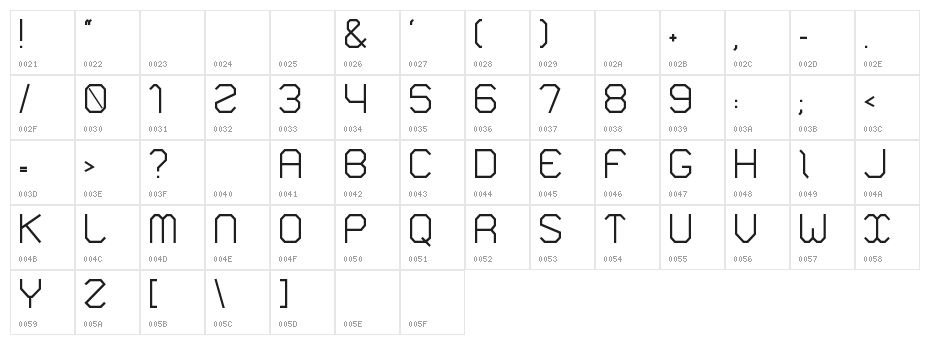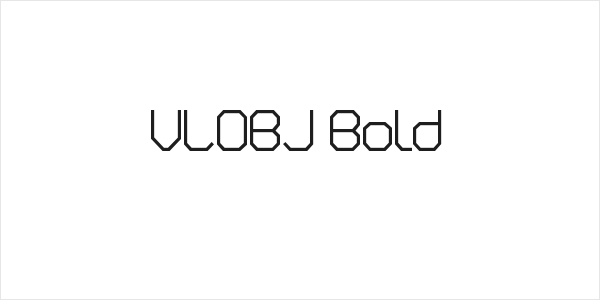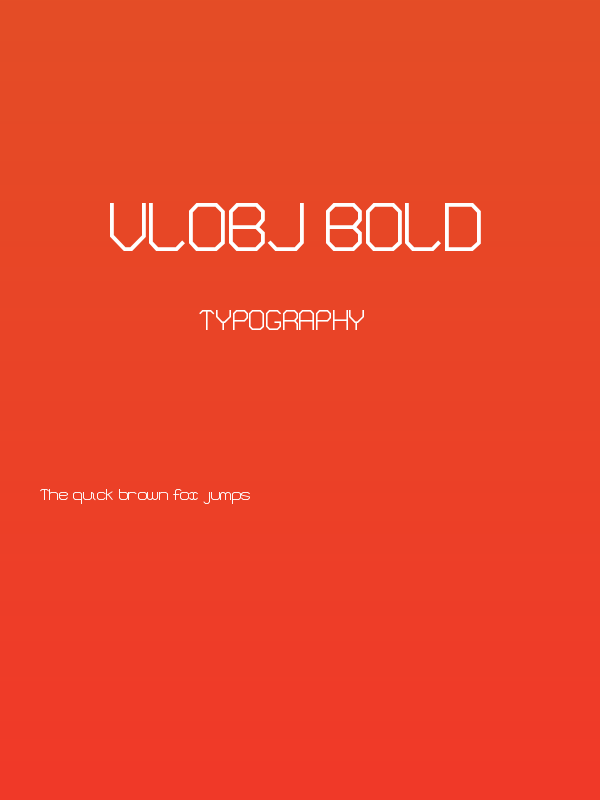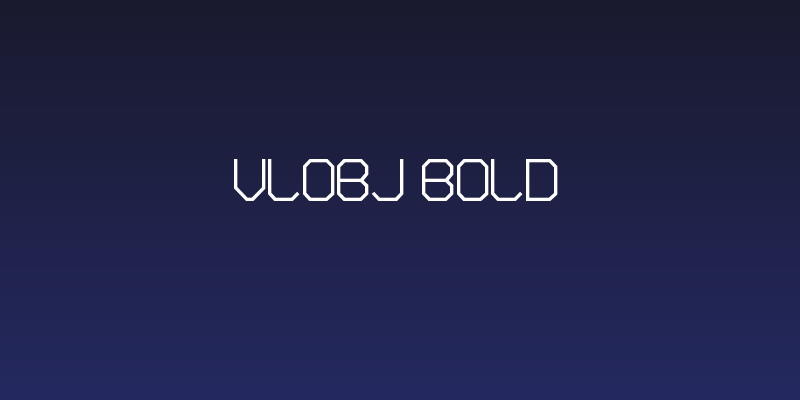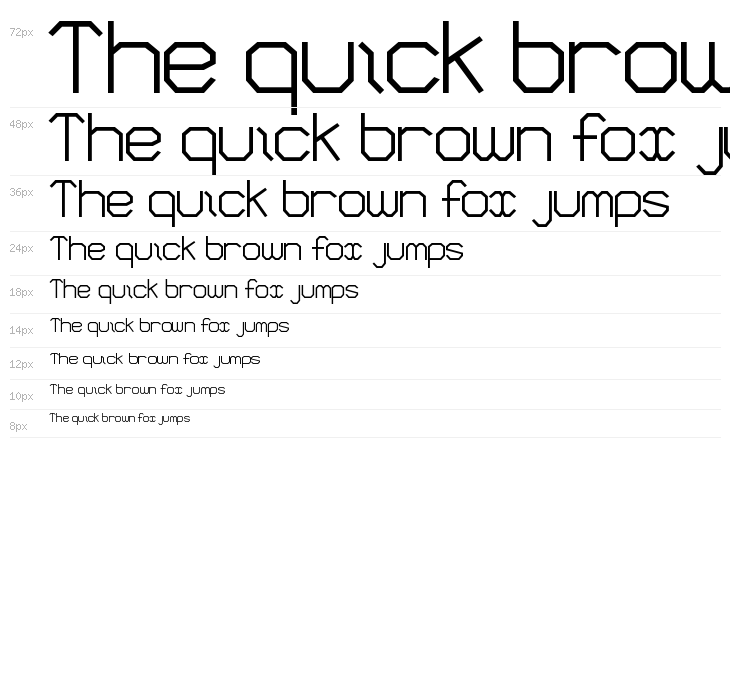
VLOBJ Bold Font
VLOBJ Bold Description
This font features a geometric and angular design, characterized by its sharp edges and distinct, octagonal shapes. The letters are constructed with straight lines and sharp corners, giving it a futuristic and technical appearance. The uniformity in line thickness across all characters contributes to a cohesive and structured look. The uppercase and lowercase letters maintain a consistent style, while the numerals and special characters complement the overall design. This font's unique style makes it stand out, offering a modern and edgy aesthetic.
| Proposed Projects | Ideal for technology branding, sci-fi themed projects, digital interfaces, and modern posters. |